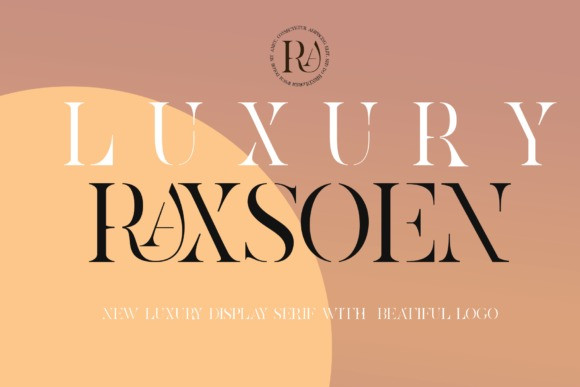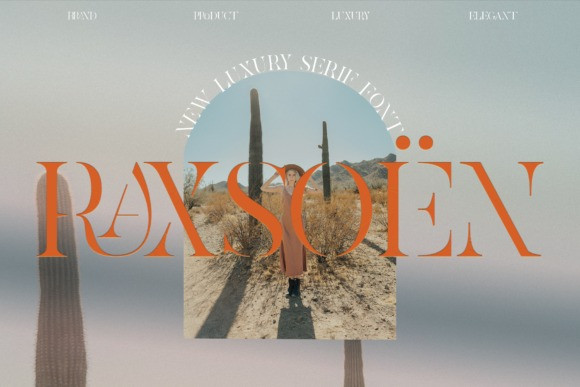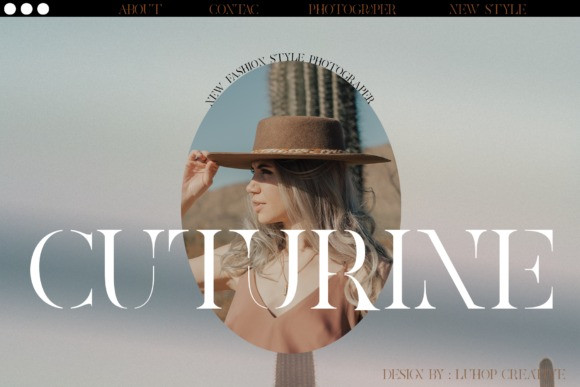
Raxsoen Font
Raxsoen is an elegant and distinct serif font. Trendy and stylish, this font will elevate each of your creations. Raxsoen is PUA encoded which means you can access all of the glyphs and swashes with ease!